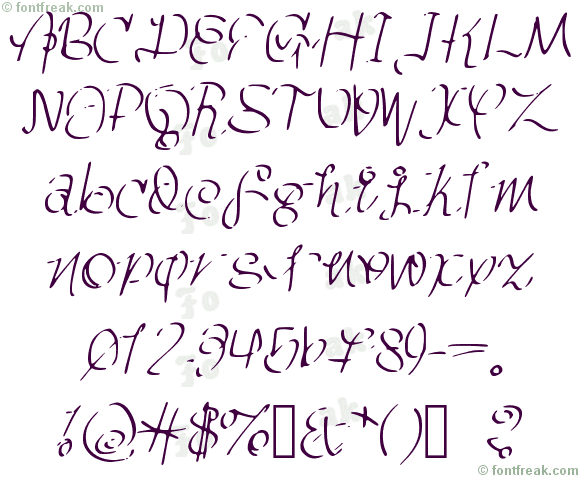
GhettoMagnetic
About GhettoMagnetic
GhettoMagnetic, designed by Andrew McCluskey, is a captivating display typeface that embodies a unique blend of artistic flair and urban edge. As a decorative font, it features an eclectic style with an expressive, hand-drawn quality that sets it apart from conventional typefaces. The strokes exhibit a varied weight, creating an eye-catching contrast that enhances its visual appeal. The spacing between characters is thoughtfully arranged, allowing for a harmonious flow that draws attention without overwhelming the viewer. This font incorporates whimsical curves and elongated elements, adding a playful yet sophisticated touch to any design.
GhettoMagnetic is ideal for a range of creative applications. It shines in crafting bold movie posters, where its distinctive style can evoke the film's themes and emotions. Additionally, it makes a strong impact on event flyers, especially for music festivals or urban art showcases, where the energetic vibe of the font resonates with the audience. Restaurant menus can also benefit from this typeface, particularly for establishments that want to convey a trendy and modern atmosphere. Furthermore, GhettoMagnetic can elevate branding for small businesses aiming to establish a unique identity in a competitive market.
What makes GhettoMagnetic particularly noteworthy is its ability to capture attention while maintaining a sense of artistry. Its distinctive character and versatile applications ensure that it stands out in any design context, making it a valuable addition to any typographer's toolkit.